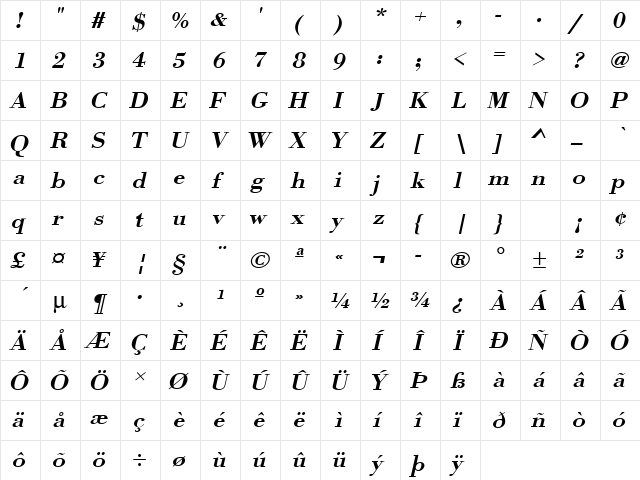
URWBodoniTMedExtWid Oblique Font Preview
URWBodoniTMedExtWid Oblique
URWBodoniTMedExtWid Oblique Font Details
Design Context for URWBodoniTMedExtWid Typeface
URWBodoniTMedExtWid takes a measured approach to typography — its balanced proportions and neutral character make it a reliable workhorse for both digital and print work. Its italic angle brings a sense of urgency and motion to the letterforms.